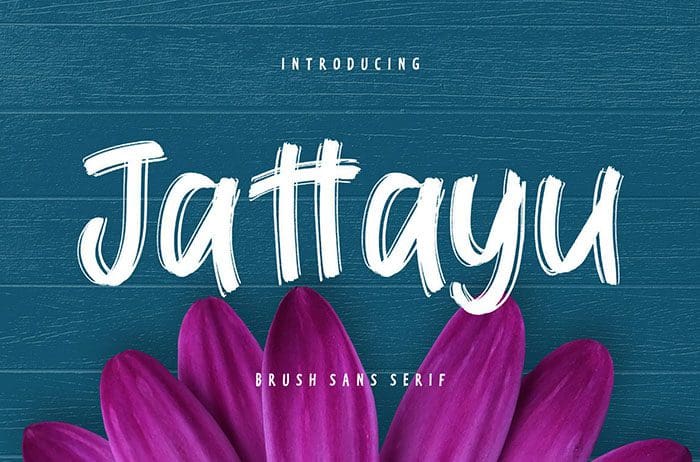
Jattayu Brush Font
Jattayu is a brush font with a rough brush style make this font looks natural and catchy. Perfect for product packaging, product designs, label, and much more. Thanks to Creatype Studio for sharing this font! Take a look at this portfolio for more of his stunning fonts.